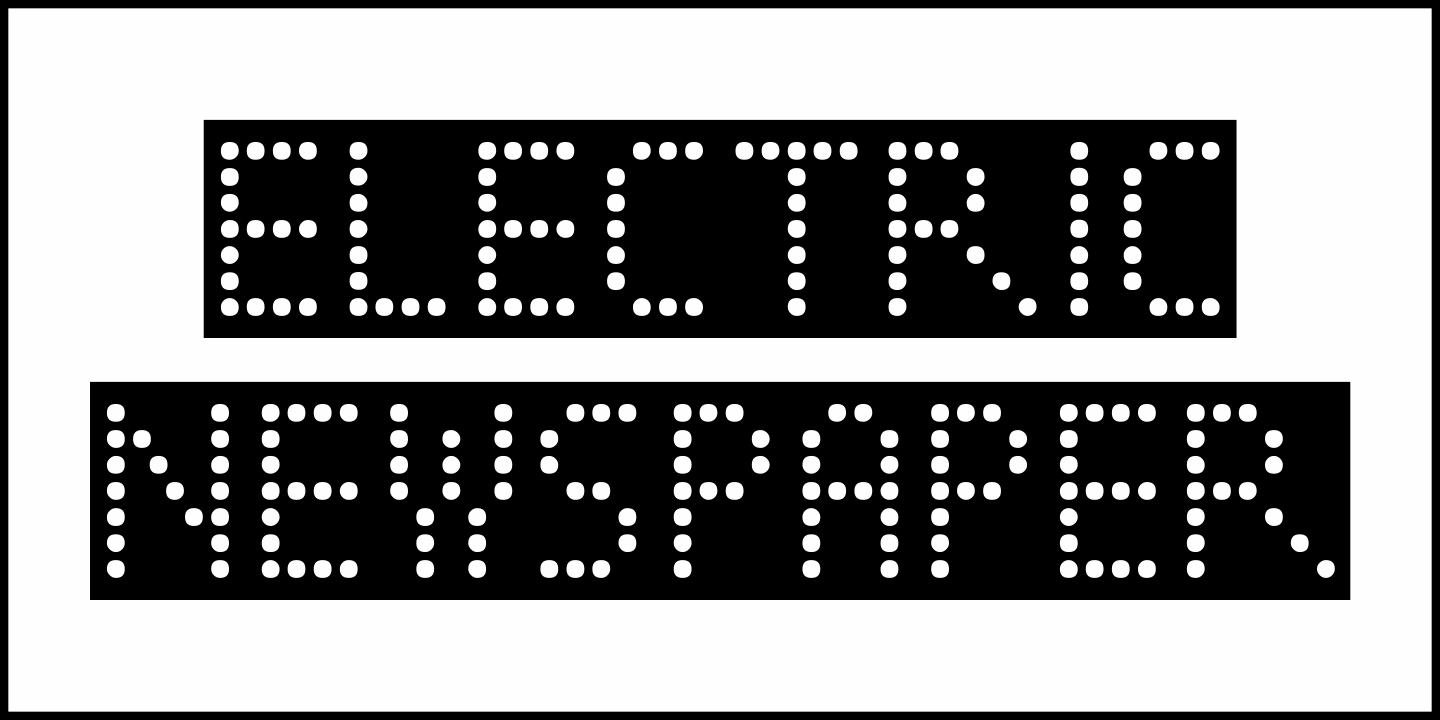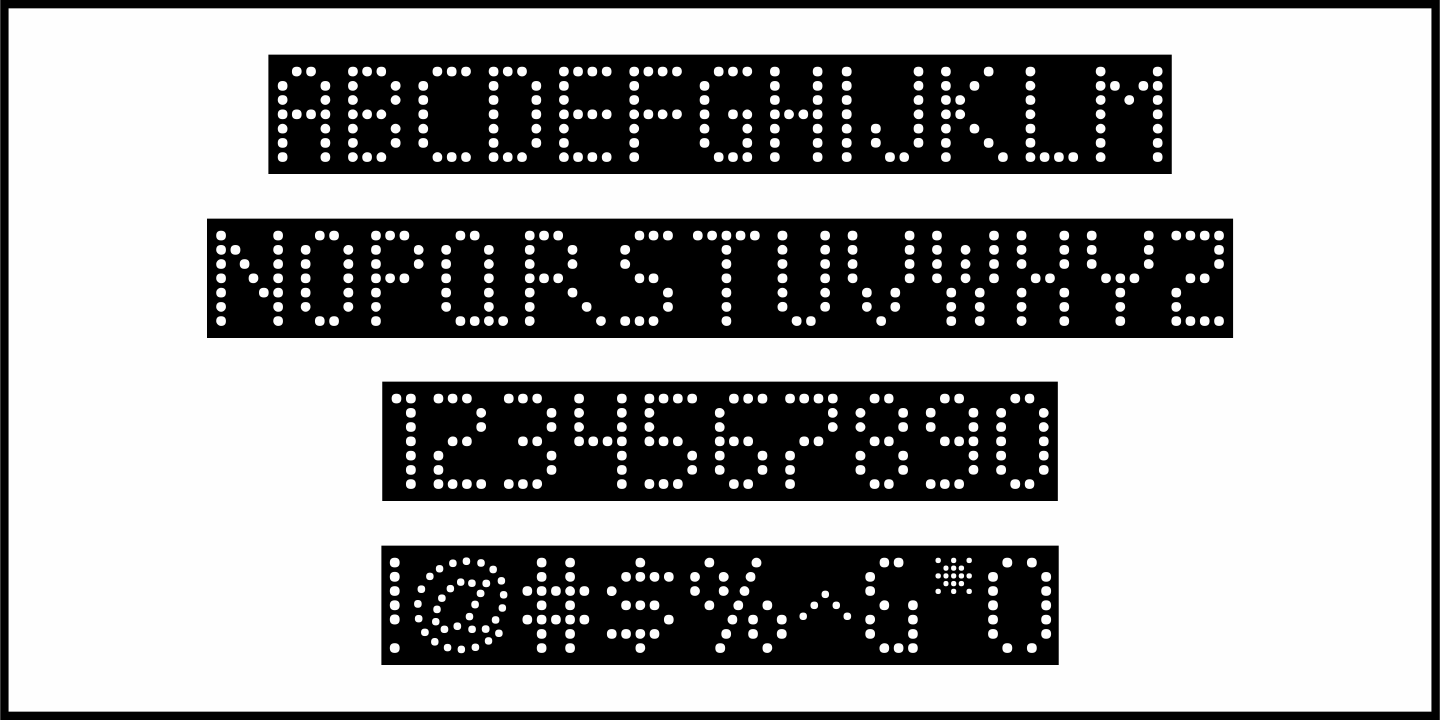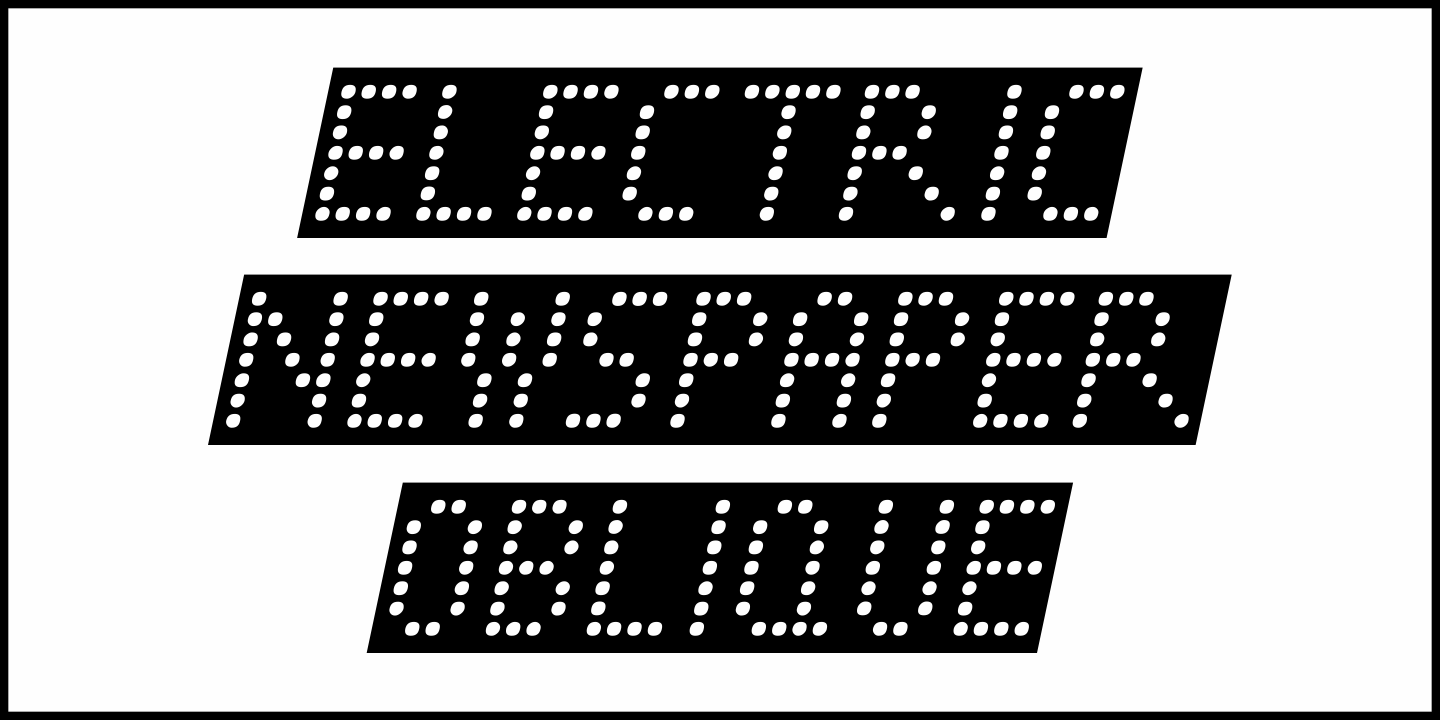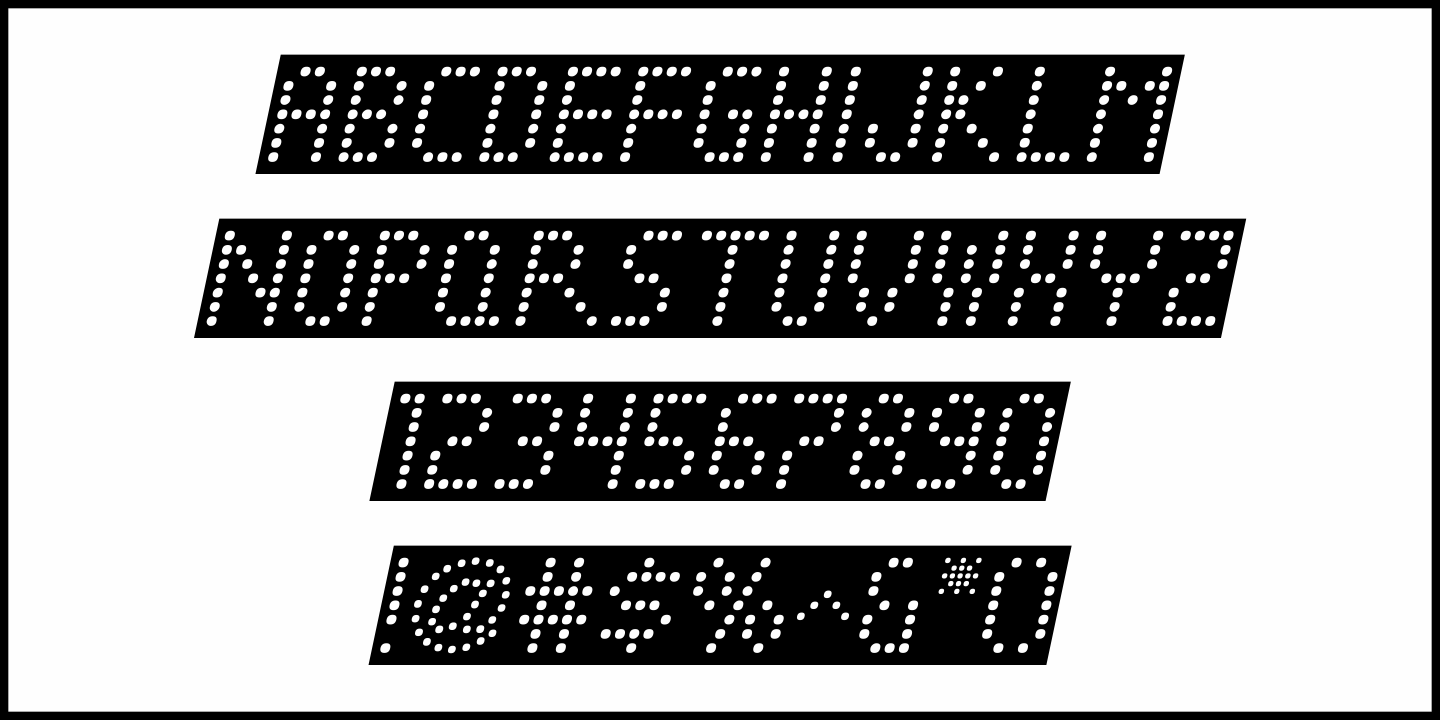
Electric Newspaper
Around 1931, the Los Angeles Times (in partnership with the Richfield Oil Company) installed on its building a moving message board similar to the one at the New York Times in New York City which they dubbed an “electric newspaper”.
The style of characters used on this electronic sign were the basis for the namesake font Electric Newspaper JNL, which is available in both regular and oblique versions.
A blank space to place between words is available on both the solid bar and broken bar keystrokes.